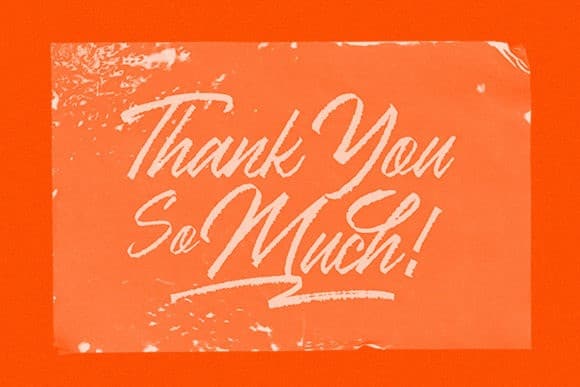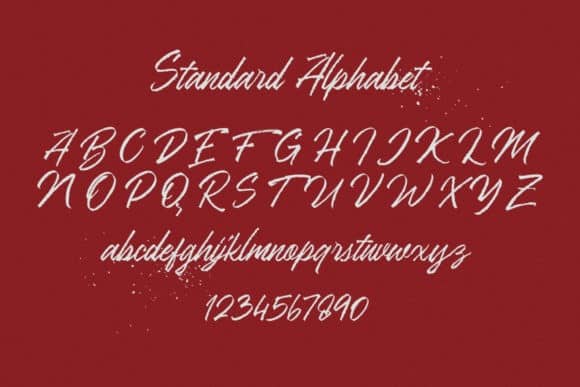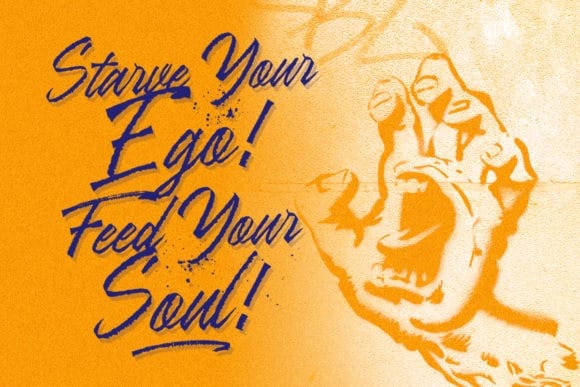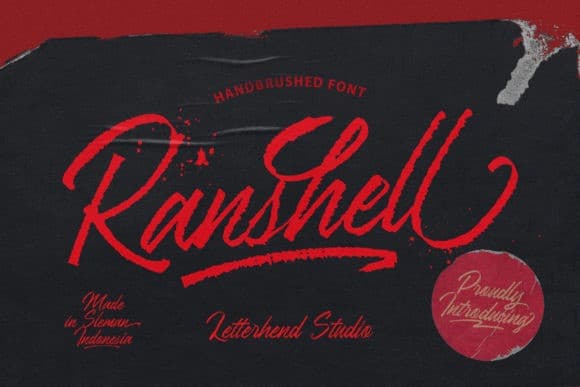
Ranshell Handbrush Font
Ranshell Handbrush Font is a natural handbrused font, This collection of scripts is perfect for personal branding. this works well for many applications. It’s a beautiful and flowing handwritten font. Artistic and unique, this font will elevate each of your creations! Ranshell is PUA encoded which means you can access all of the glyphs and swashes with ease! Everything from personal branding & wedding invitations to advertising could benefit from this collection of signature fonts